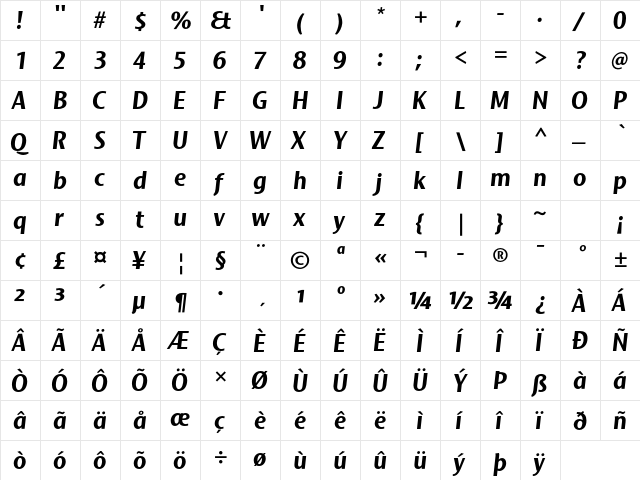
Mosquito Formal Std Bold Italic Font Preview
Design Context for Mosquito Formal Std Typeface
Mosquito Formal Std is a composed and adaptable typeface that performs quietly and consistently across a wide range of design contexts. The dynamic lean of this cut emphasises speed and emphasis in any layout. Its bold stroke weight gives it real presence on the page.
Pro Tip: Try Mosquito Formal Std for annotation and caption copy alongside an upright companion — the contrast in angle creates a dynamic but ordered typographic system.